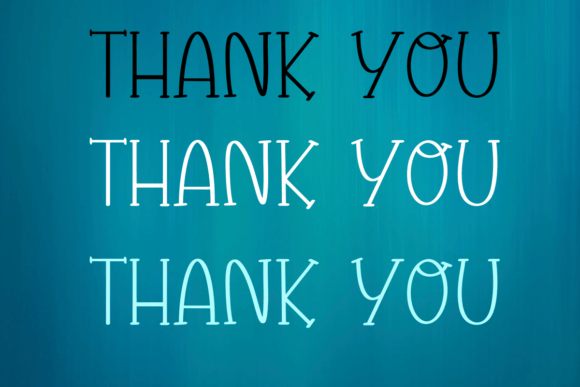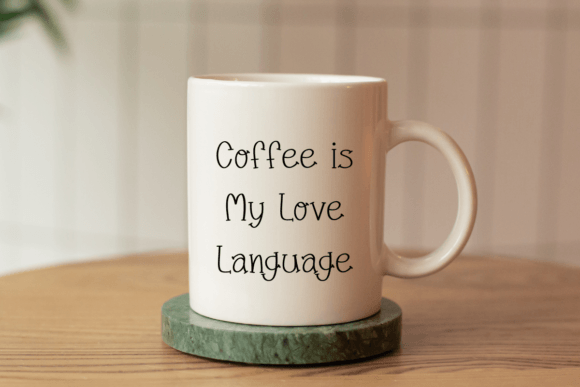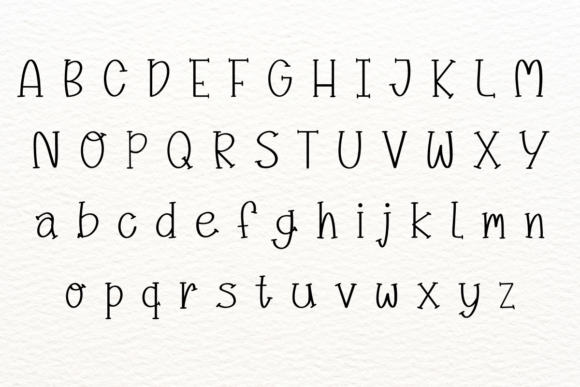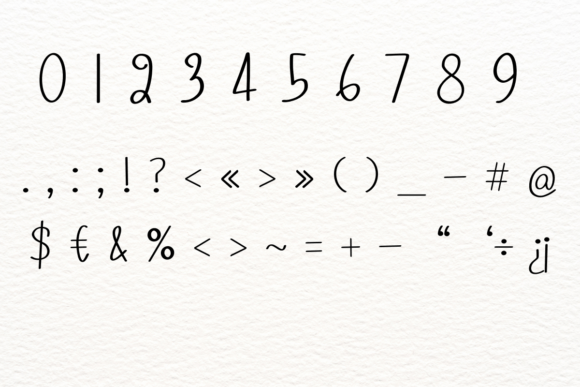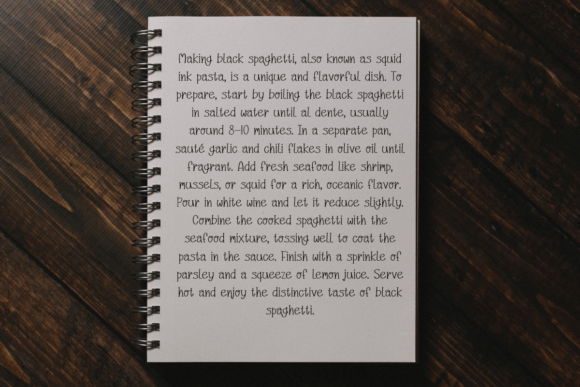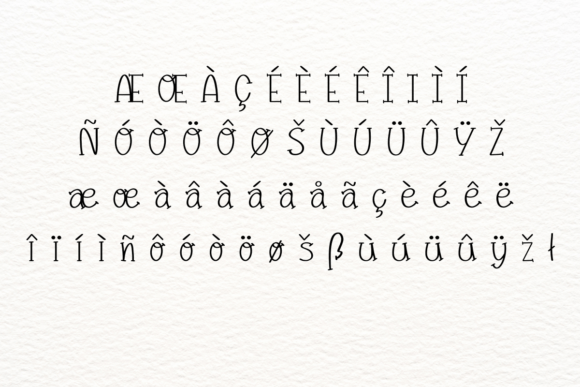
Introducing Amaryllis Font: The Cute Handwritten Serif Font for Spectacular Designs
Are you looking for a font that can add a friendly touch to your designs? Look no further than Amaryllis Font, a cute handwritten serif font that is perfect for creating spectacular designs. With its playful and charming style, Amaryllis Font is ideal for a wide range of projects, from Easter and back to school designs to wedding and party decorations.
What Makes Amaryllis Font So Special?
Amaryllis Font is a unique and versatile font that offers a range of features that make it perfect for designers and crafters. Here are just a few of the things that make Amaryllis Font so special:
- Cute and Playful Style: Amaryllis Font has a cute and playful style that is sure to capture the attention of your audience. Its handwritten serif design gives it a friendly and approachable feel that is perfect for a wide range of projects.
- Highly Versatile: Amaryllis Font is highly versatile and can be used for a wide range of projects, from fun and playful designs to more formal and elegant projects.
- Easily Readable: Despite its playful style, Amaryllis Font is easily readable, making it perfect for designs that require a lot of text, such as posters, blogs, and social media posts.
Amaryllis Font is perfect for a wide range of projects, including:
- Easter Designs: Add a touch of springtime fun to your Easter designs with Amaryllis Font. Use it to create colorful and playful Easter egg designs, bunny decorations, and more.
- Back to School Designs: Create fun and playful back to school designs with Amaryllis Font. Use it to create colorful and engaging posters, flyers, and worksheets.
- Wedding and Party Decorations: Add a touch of elegance and sophistication to your wedding and party decorations with Amaryllis Font. Use it to create beautiful and unique invitations, decorations, and more.
- Halloween and Christmas Designs: Create spooky and festive Halloween and Christmas designs with Amaryllis Font. Use it to create colorful and playful posters, decorations, and more.
- Clothing and Child-Related Designs: Use Amaryllis Font to create fun and playful designs for clothing, toys, and other child-related products.
- Greeting Cards and Invitations: Create beautiful and unique greeting cards and invitations with Amaryllis Font. Use it to add a personal touch to your correspondence.
- Social Media Posts: Use Amaryllis Font to create engaging and eye-catching social media posts. Its playful style is sure to capture the attention of your followers.
Tips for Using Amaryllis Font
Here are a few tips for using Amaryllis Font:
- Experiment with Colors: Amaryllis Font looks great in a wide range of colors. Experiment with different colors to find the perfect combination for your design.
- Use it with Other Fonts: Amaryllis Font pairs well with other fonts. Try using it with a bold font for headings and a clean font for body text.
- Add Decorations: Add decorations, such as flowers or stars, to your design to give it a more playful and whimsical feel.
Amaryllis Font is a versatile and charming font that is perfect for designers and crafters. Its cute and playful style makes it ideal for a wide range of projects, from Easter and back to school designs to wedding and party decorations. With its highly readable design and wide range of uses, Amaryllis Font is sure to become a favorite in your design arsenal.